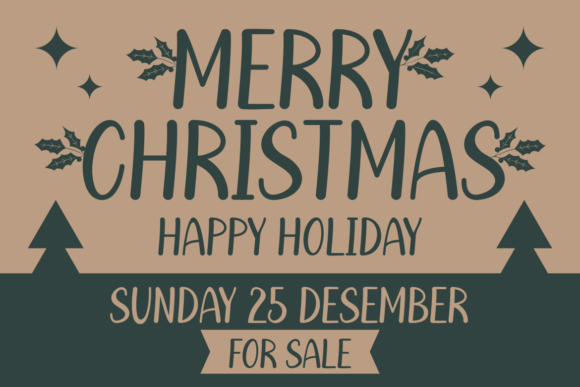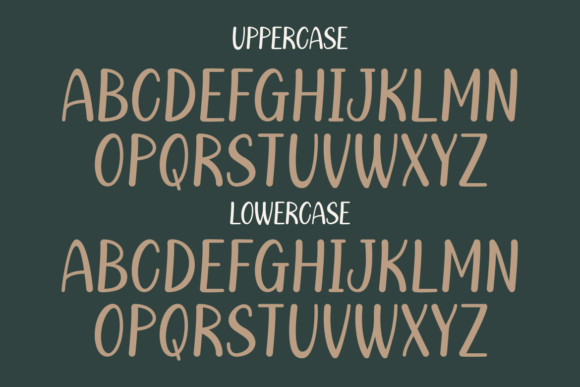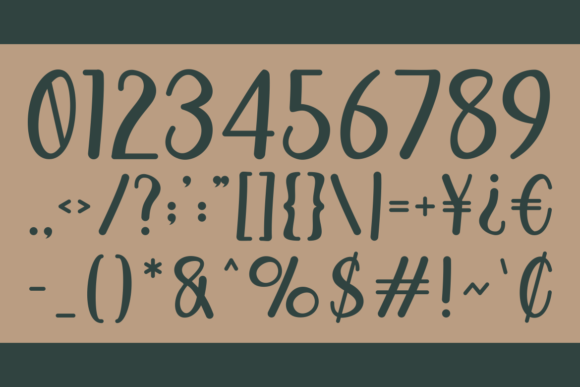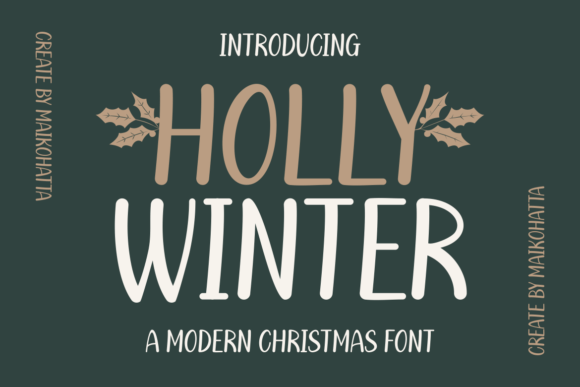
Introduction to Holly Winter Font
This font is specifically designed to create a Christmas atmosphere and mood.
It is often used in graphic design, greeting cards, posters, and various other visual elements related to the celebration of Christmas .
Key Features of Holly Winter Font